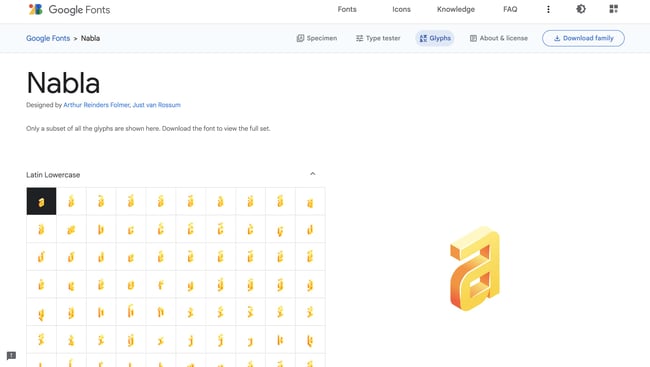
What are Color Fonts & Why Web Designers Will Probably Use Them
Two coworkers evaluating Google Color Fonts.
If you've explored Google fonts recently, you likely noticed more opportunities to get creative with your font than ever before. Thanks to color fonts, you can now use a typeface that tells a story just as much as your copy.
In this post, we'll dive into what color fonts are, the potential drawbacks, why they are effective, and how you can use these typefaces to their fullest potential.
What are color fonts?
Color fonts are an inflection point for digital typography. And it's not as intimidating as it may seem: a color font file has a lot in common with a traditional one. Color font files, however, embed extra data that allows the font to display graphic properties. That additional information gives web designers more creative freedom to manipulate the font's appearance.
Even if you think you're unfamiliar with color fonts, you probably use them every day unknowingly. Emojis, for instance, are color fonts.
While you can use the term color font to describe graphic characters (hence emojis), it also often applies to a more traditional typeface. You should be aware of some hallmarks of color fonts: They permit color specification inside the font file itself. Thanks to color fonts, your type can have multiple textures, shades, colors, and transparency. Color fonts also include bitmap images, vector shapes, or both.
Color fonts also differ from traditional ones because they allow you to add multiple colors to your characters. You can find by visiting the Google Fonts homepage and selecting 'Show only color fonts.'
Google Color Fonts Collection: Image shows the fonts that appear when you select 'Show only color fonts' on Google.
Other Names for Color Fonts
Today, we usually store color fonts as Scalable Vector Graphics (SVG) data which you can find in OpenType font files. This format is effective as SVG can contain vector shapes that include gradients, color, and even bitmap images.
For this reason, you may hear color fonts called OpenType-SVG or chromatic fonts.
History of Color Fonts
You can credit the OpenType-SVG font format to Adobe and Mozilla. These companies initially created the form that became the industry standard in 2016. Other massive companies such as Google and Microsoft agreed to the single format that supports color fonts.
All of these companies, however, previously implemented their own color formats to show emojis on their operating systems. Today, there are five main color font formats. These include SVG (W3C), SBIX (Apple), CBDT (Google), and COLR (Microsoft), OpenType SVG (Mozilla & Adobe).
OpenType-SVG is gaining momentum because multiple operating systems support it.
Are there any drawbacks to using color fonts?
All of that sounds great, right? However, some potential drawbacks could prevent designers from adapting color fonts in their designs. Let's dive into two things you should consider when you are thinking about using color fonts: font scalability and size.
Let's share the good news: If the color font you're using is based on vector glyphs, you can resize them without losing quality.
However, if you're working with a color bitmap font, it can scale correctly up to a specific size. If it's beyond its original resolution, the lettering will appear pixelated.
You may also be curious about font sizes. Color font files are usually larger than traditional ones would. This concern is amplified if the font embeds bitmap characters that are high-res.
Fonts are usually several hundred kilobytes. However, color fonts weigh significantly more (depending on how complicated they are). Some may be a megabyte or more.
Why do web designers use color fonts?
Web designers use color fonts to create a more visually appealing digital experience. Here are some primary reasons web designers will harness the power of color fonts.
Color fonts add visual interest.
If you're a web designer looking to add visual interest to ensure your copy pops, color fonts are a great option. Of course, that means you have to learn to use them correctly ¡ª but more on that later.
Whereas a traditional font is relatively limited in what colors it contains, you can get creative with color fonts to add visual complexity to your copy. With the help of color fonts, you can embellish your fonts in a way previously unthinkable.
Notice how, with the example below, the font has more character than it would if it were flat.
Google Color Font Example: Image shows Nabla, a color font from Google's Collection.
Use Color Fonts to Add Visual Interest
Now that you have a robust understanding of color fonts and how to use them, head to Google fonts (or your font provider of choice) and get started working with them.